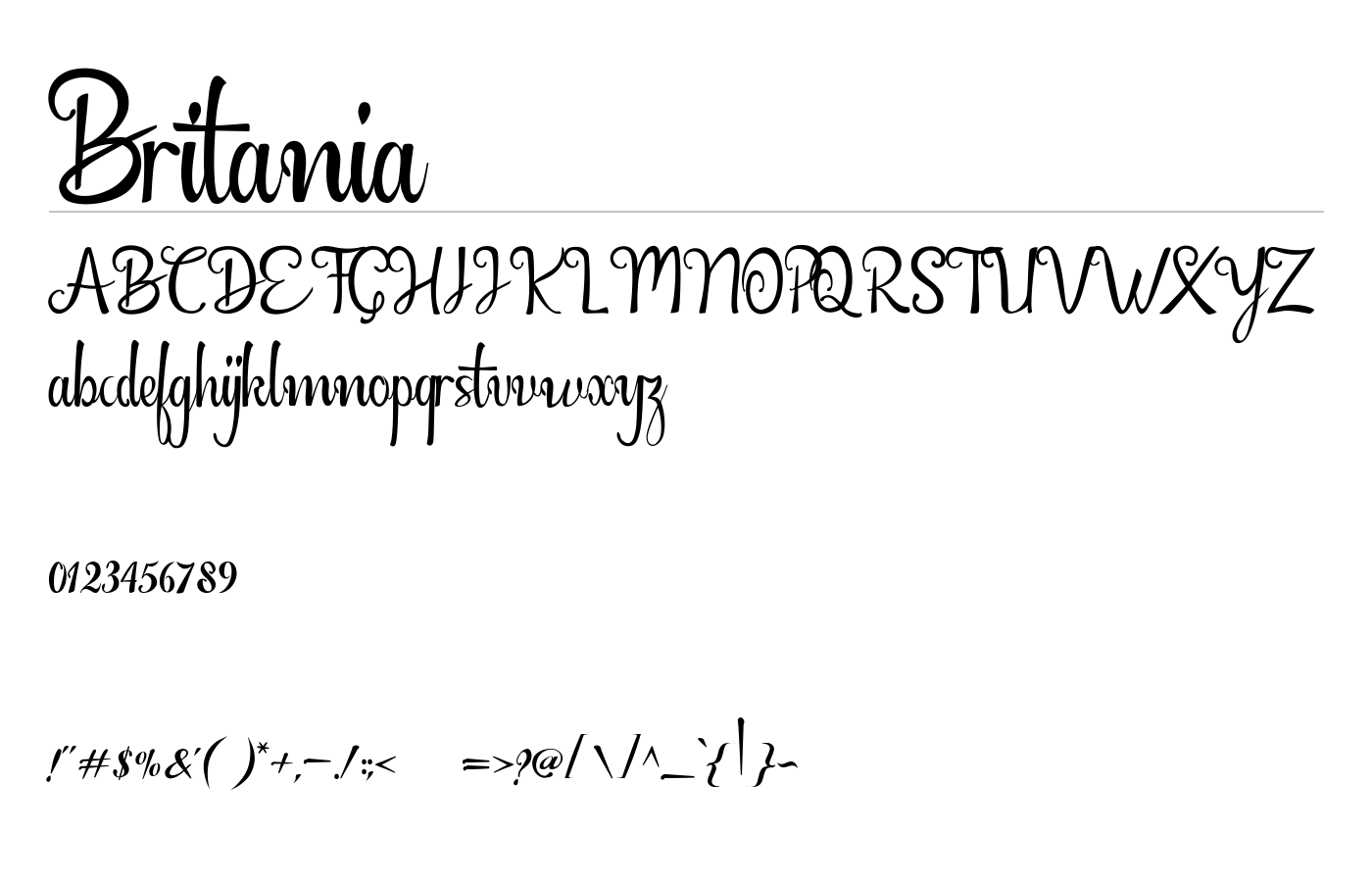
Britania is a playful and elegant script font with a delicate, hand-drawn feel. Its tall, narrow letterforms and whimsical curls give it a charming, vintage personality perfect for creative branding, invitations, and decorative headlines. This font works well where a stylish, artisanal look is desired, adding a touch of sophistication without losing warmth.
Britania Font
About Britania Font